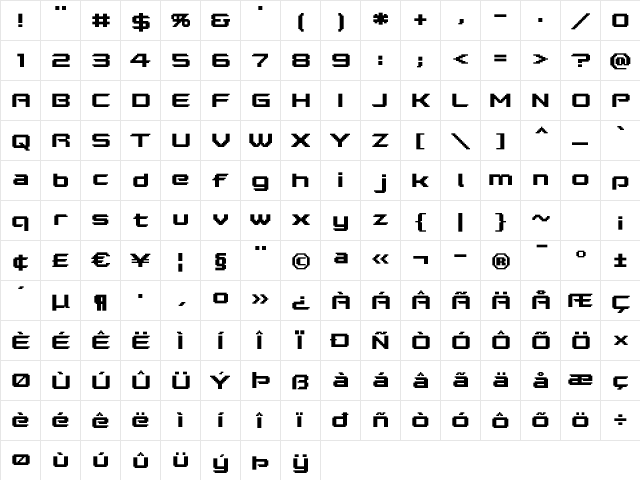
Bios Three Regular
Design Context for Bios Three Typeface
Bios Three offers clean, dependable letterforms without strong stylistic allegiance, making it a practical choice for designers who need flexibility.
Pro Tip: Use Bios Three in both headline and body roles to test its range before committing to a single application.